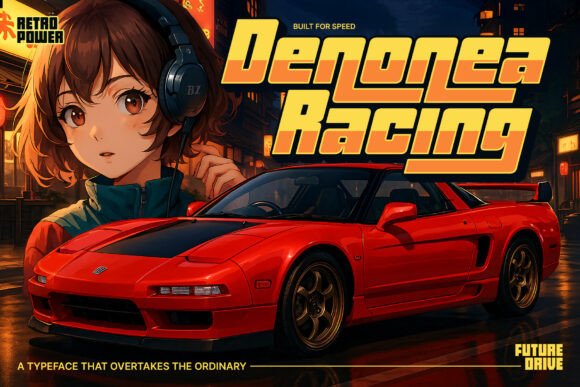
Denonea Racing: A Bold Display Font for Speed
When you think of racing, your mind immediately conjures images of roaring engines, blurred horizons, and the sleek lines of a vehicle cutting through the air. Typography can capture that same feeling, transforming static text into a visual representation of velocity. This is exactly what Denonea Racing achieves. It is not just another font; it is a design tool built to evoke the adrenaline of motorsport while maintaining the structural integrity needed for professional communication. For creators looking to inject energy into their projects, this typeface offers a unique blend of automotive precision and retro-futuristic flair.
The Essence of Automotive Design in Typography
Denonea Racing draws its inspiration directly from the world of high-speed competition and vintage anime aesthetics. The font features bold, blocky letterforms that mimic the sturdy construction of classic race cars. Unlike thin or delicate scripts that might feel out of place in an industrial setting, this display font stands firm. It embodies the stability required on a racetrack while hinting at the futuristic edge found in modern engineering.
The design philosophy behind this typeface focuses on two main pillars: strength and motion. The thick strokes provide a sense of confidence, ensuring that headlines are impossible to miss. At the same time, the geometric shapes recall the angular designs seen in 80s and 90s animation, adding a layer of nostalgia that resonates with a wide audience. Whether you are designing a logo for a new car club or creating a header for a tech blog, Denonea Racing bridges the gap between mechanical reliability and artistic expression.
Understanding the Two Dynamic Styles
One of the most practical aspects of this typeface is its versatility, offered through two distinct styles: Regular and Italic. Each serves a specific purpose within a design hierarchy, allowing users to create depth and movement without needing multiple fonts.
- The Regular Style: This version delivers strong, confident stability. It is upright and solid, making it perfect for primary headings, logos, and titles where clarity and impact are paramount. When you need your message to stand still but command attention, the Regular style provides the necessary anchor.
- The Italic Style: In typography, italics often suggest speed, and Denonea Racing Italic takes this concept to the next level. It captures the essence of forward momentum, leaning into the wind. This style is ideal for subtitles, call-to-action buttons, or any text that needs to feel like it is moving fast.
Furthermore, the Italic version includes exclusive stylistic alternates. These special characters allow designers to customize specific letters, giving the typography a unique, performance-driven look. This feature ensures that your project does not just look generic; it looks tuned and optimized, much like a race car prepared for the grand prix.
Practical Applications for Creators and Businesses
The utility of Denonea Racing extends far beyond simple decoration. It solves common design problems where standard fonts fail to convey urgency or excitement. Here are several realistic scenarios where this typeface excels:
Branding and Identity
For small business owners and entrepreneurs in the automotive sector, branding is crucial. If you run a detailing shop, a tuning garage, or sell car accessories, your logo needs to reflect your industry. Using Denonea Racing instantly communicates your niche to potential customers. The blocky nature of the font suggests durability and power, traits that car enthusiasts value highly. It helps your brand overtake the ordinary by establishing a visual identity that feels authentic to the culture.
Marketing Materials and Posters
Marketers and event organizers often struggle to make promotional materials pop. Whether you are designing a poster for a local track day, a flyer for a car meet, or a digital ad for a gaming tournament, this font grabs attention. The high contrast and bold weight ensure readability even at large sizes or when viewed quickly. The vintage anime influence also makes it a perfect choice for retro-themed events or product launches targeting Gen Z and Millennials who appreciate that specific aesthetic.
Digital Content and Blogging
Bloggers and content creators focusing on lifestyle, technology, or sports can use Denonea Racing to break up long blocks of text. While it is a display font meant for headlines rather than body copy, using it for article titles creates a dynamic reading experience. It signals to the reader that the content inside is energetic and engaging. Freelancers working on website headers or app interfaces can also leverage the Italic style to guide user interaction, making buttons and navigation elements feel more responsive.
Why Choose Denonea Racing for Your Next Project?
In a sea of generic sans-serif fonts, finding a typeface with character can be challenging. Many free fonts lack the polish required for commercial work, while expensive ones may not fit the specific vibe you are aiming for. Denonea Racing fills this gap by offering a specialized look that is both accessible and professional.
Ultimately, choosing the right typeface is about aligning your visual tools with your creative vision. If your goal is to unleash the thrill of motion and create designs that feel alive, Denonea Racing is an excellent partner. It is built for speed and designed for impact, ready to take your projects from zero to full throttle. By integrating this font into your workflow, you equip yourself with a versatile asset that stands out in a crowded digital landscape.